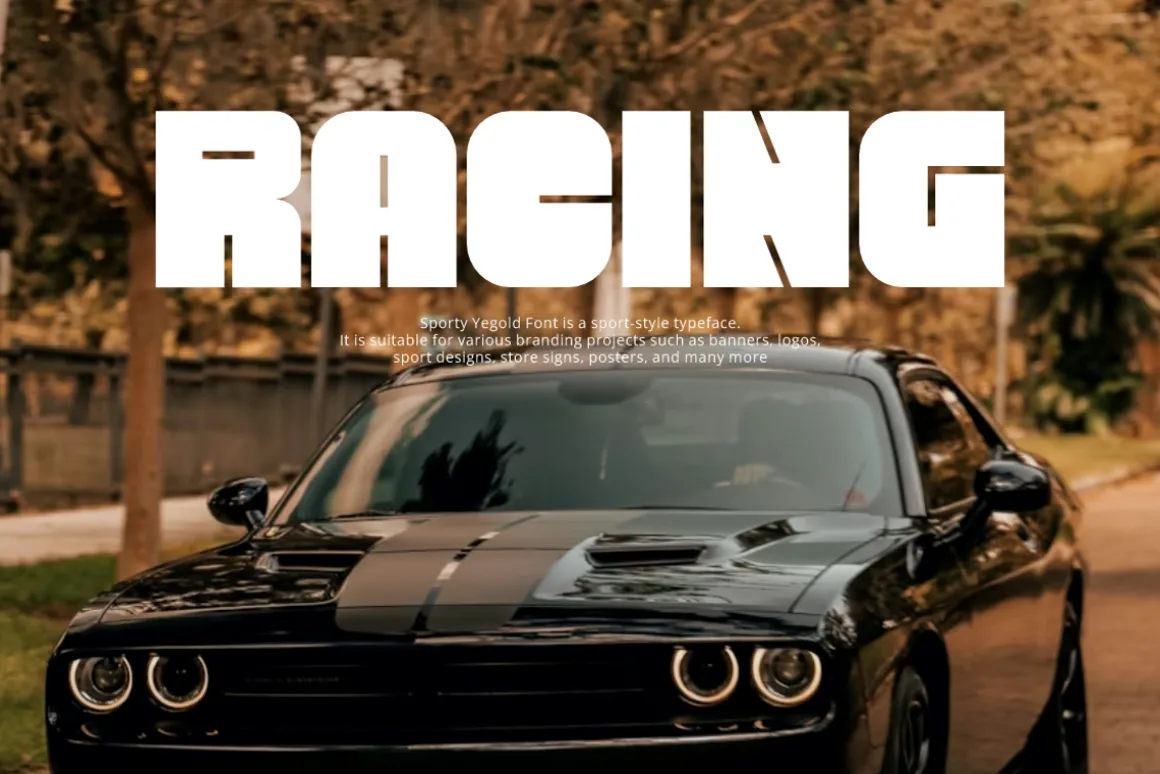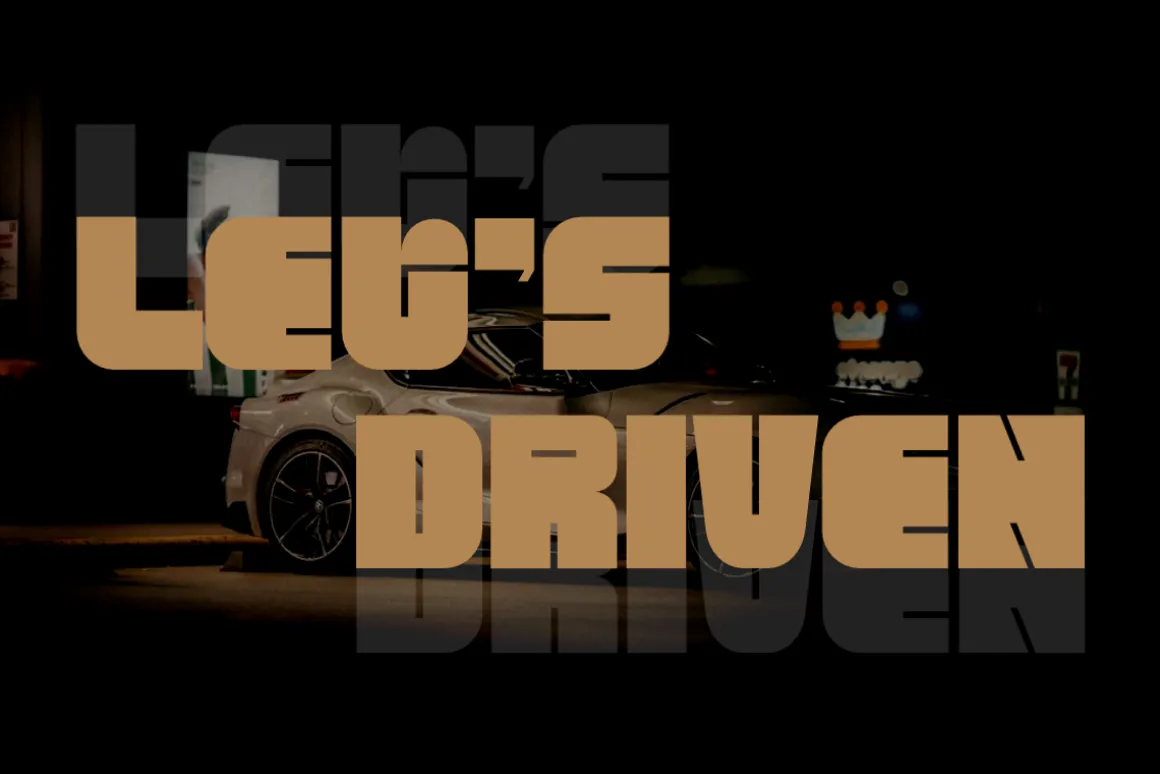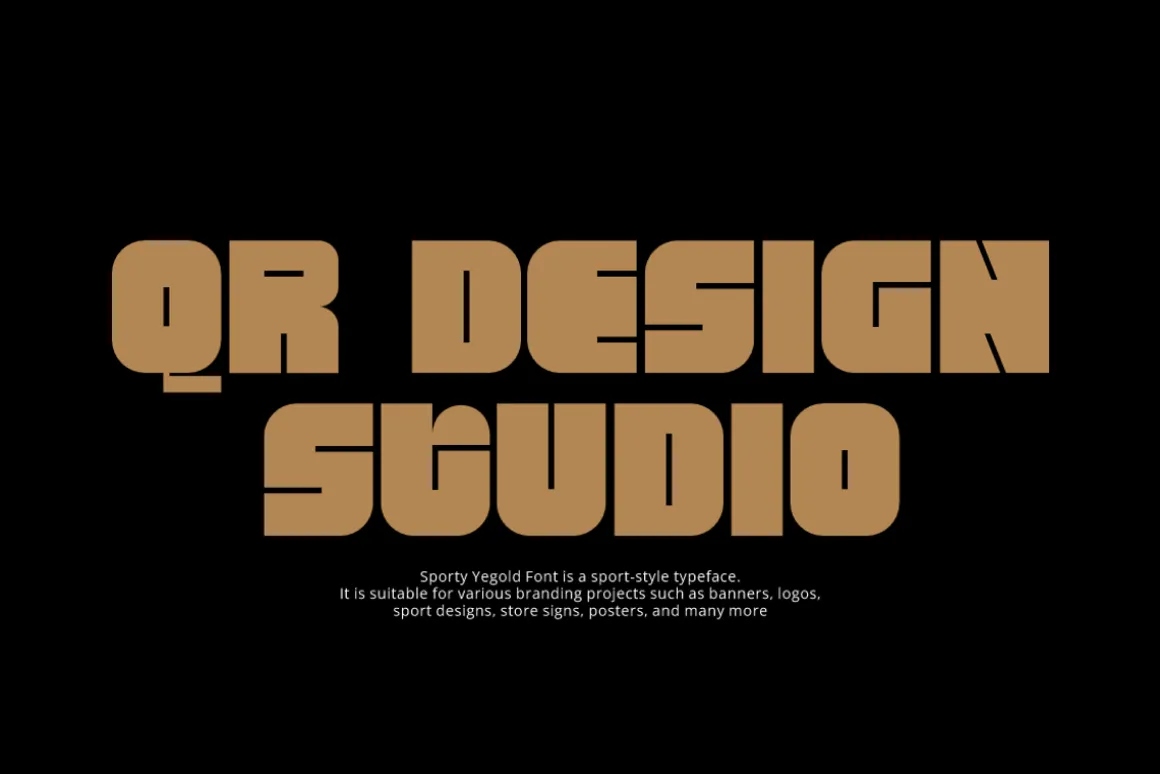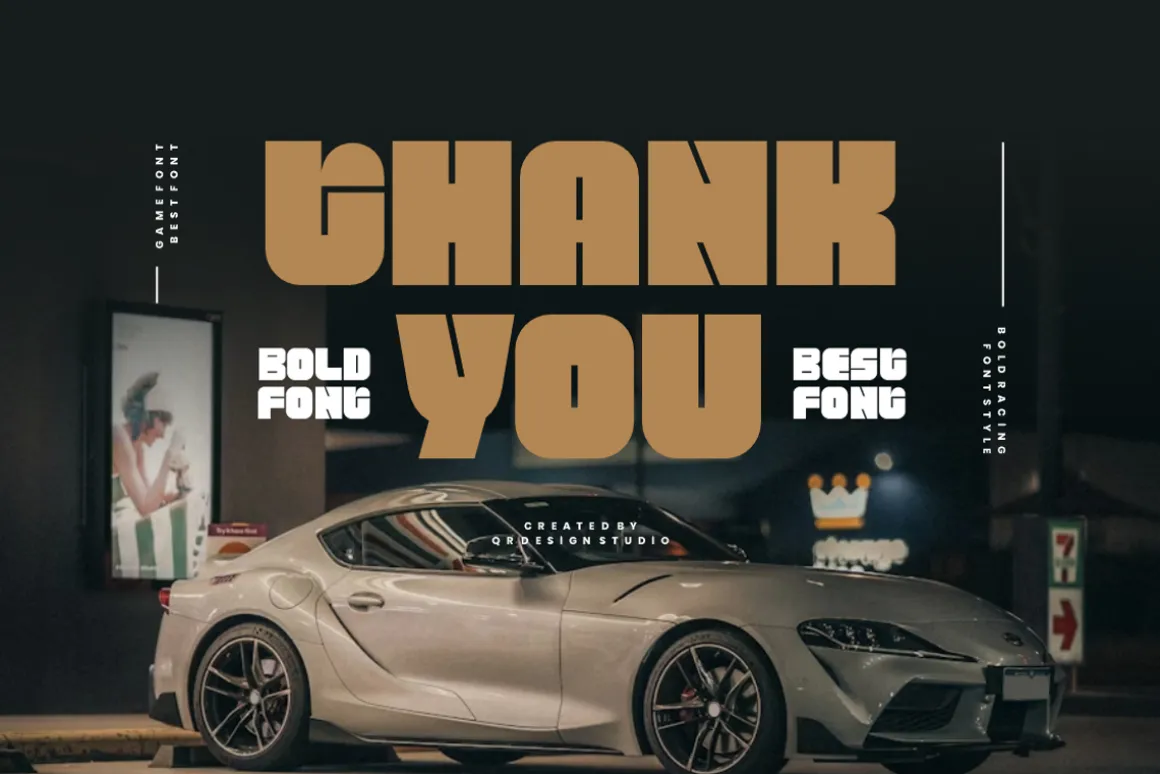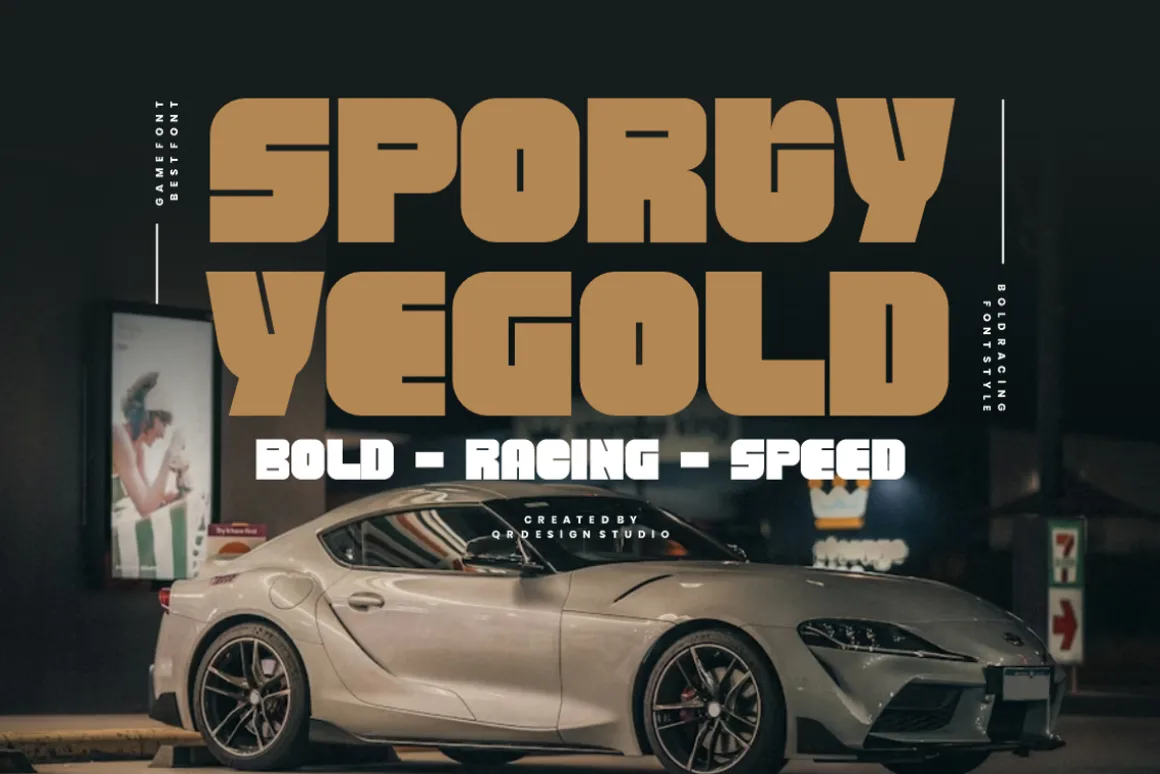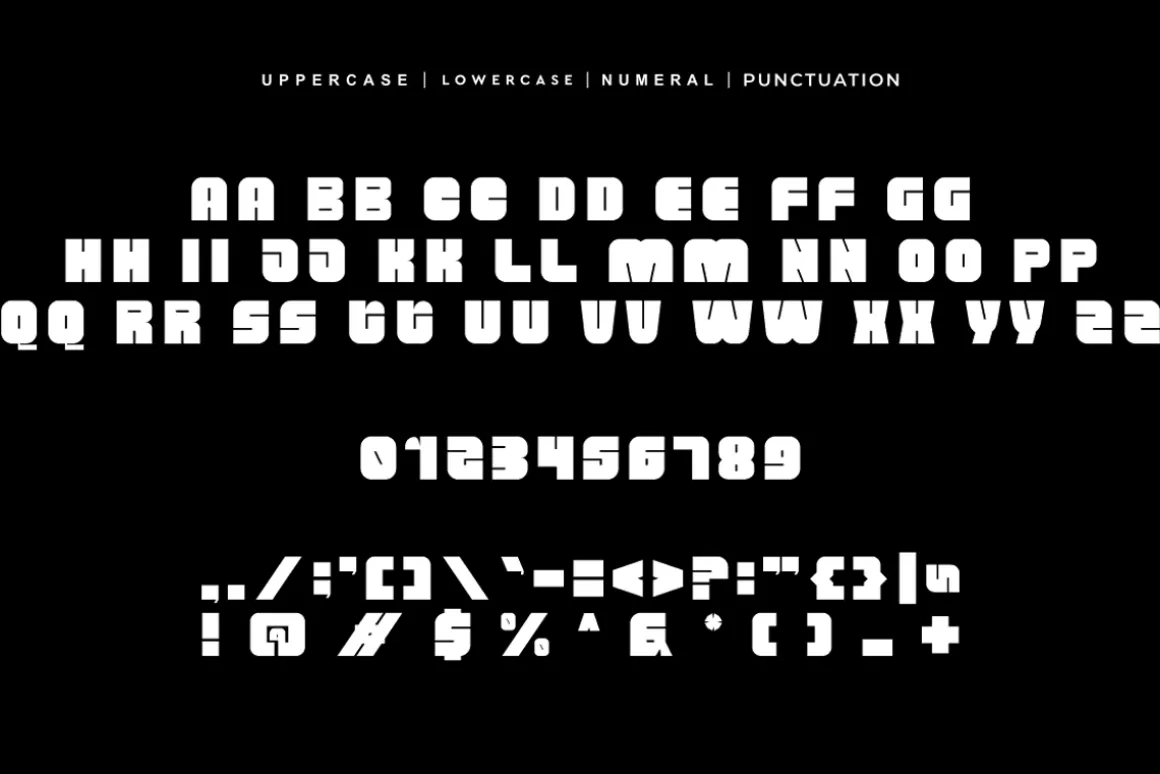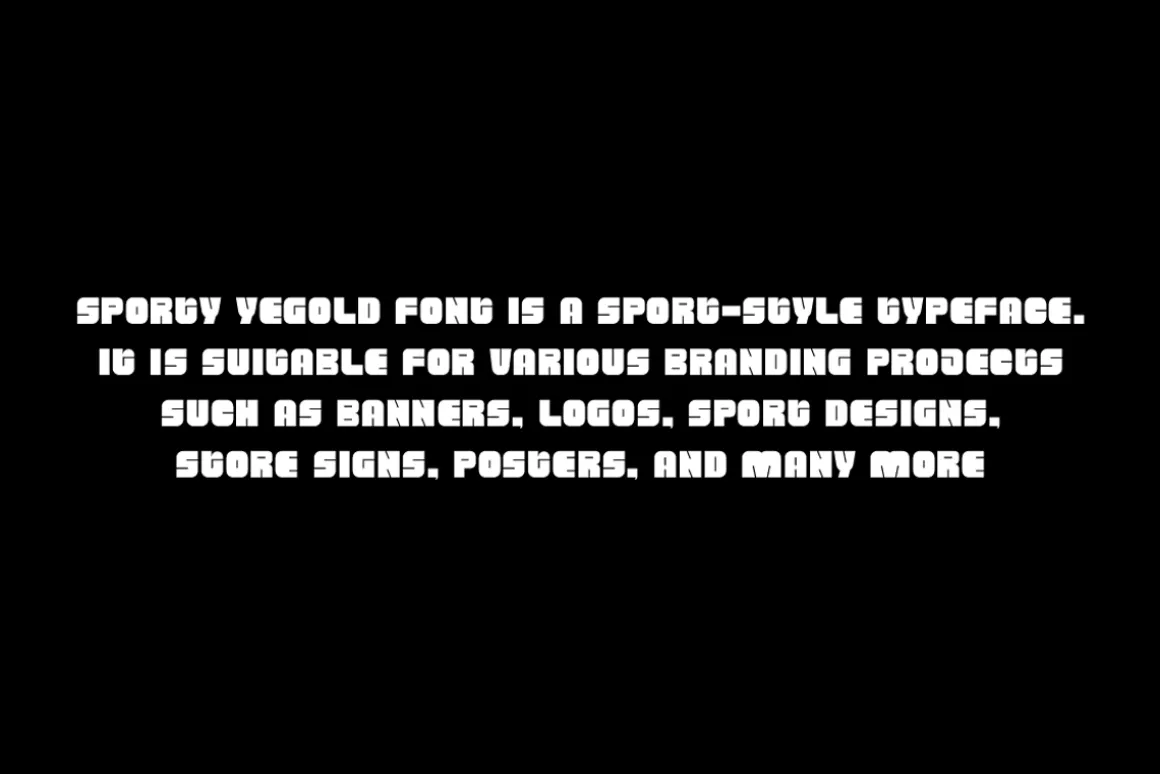
Sporty Yegold Font is a bold and authentic display typeface.It’s perfect for various branding projects such as logos, sports designs,and more. This font stands out beautifully in a wide range of contexts.